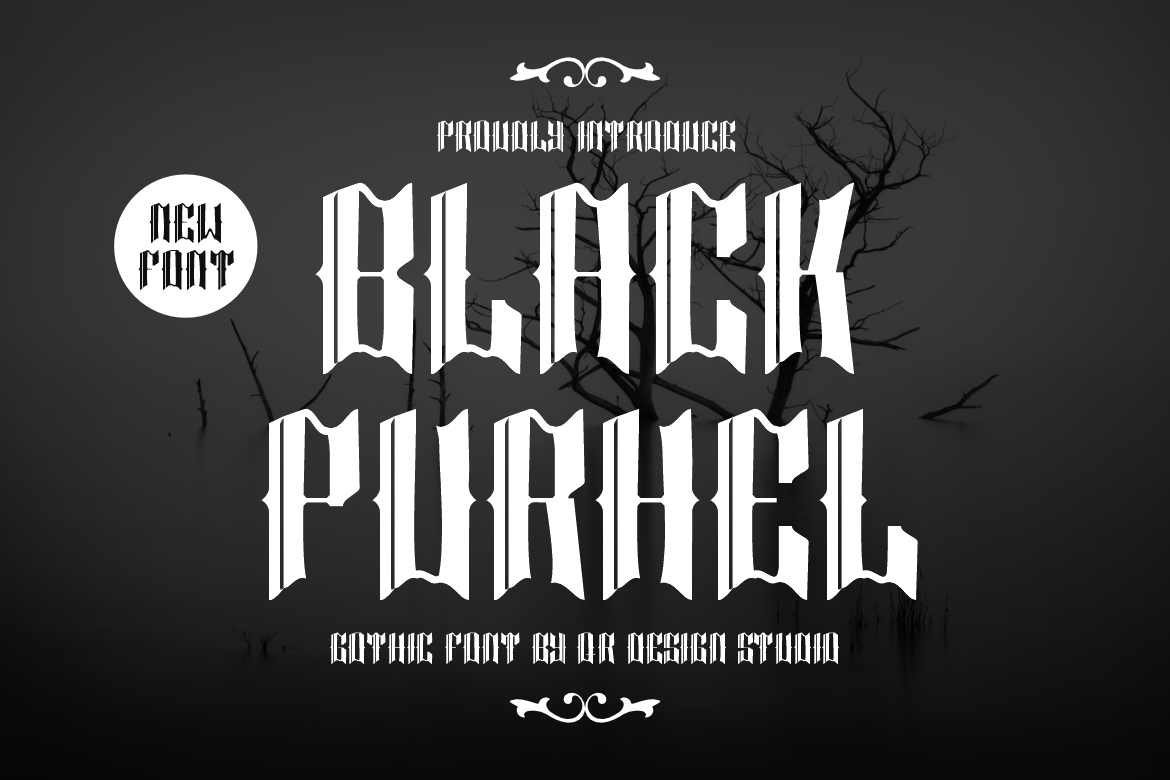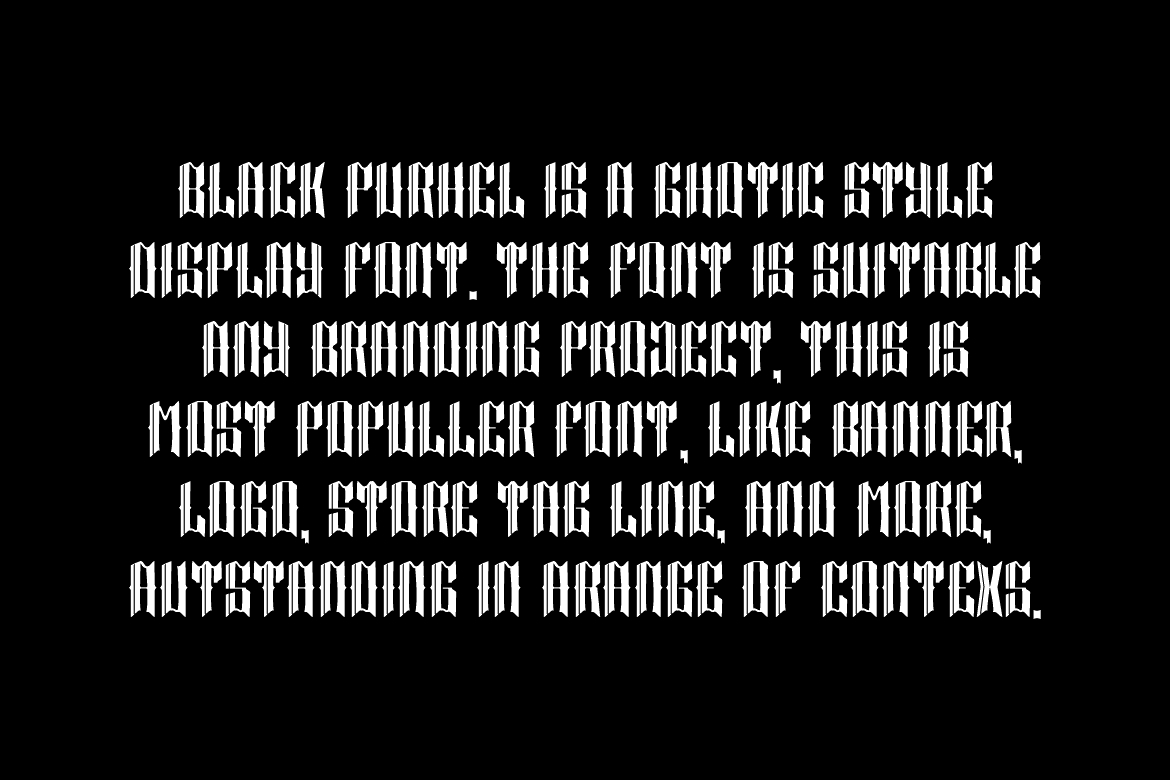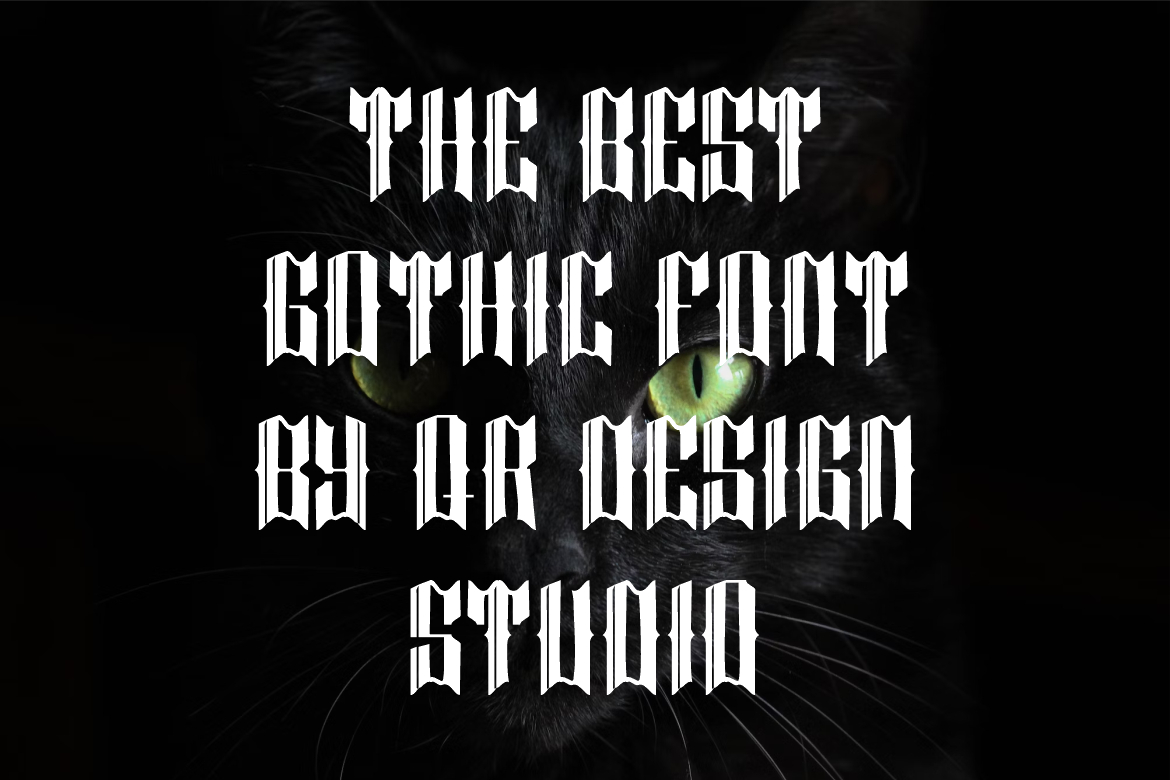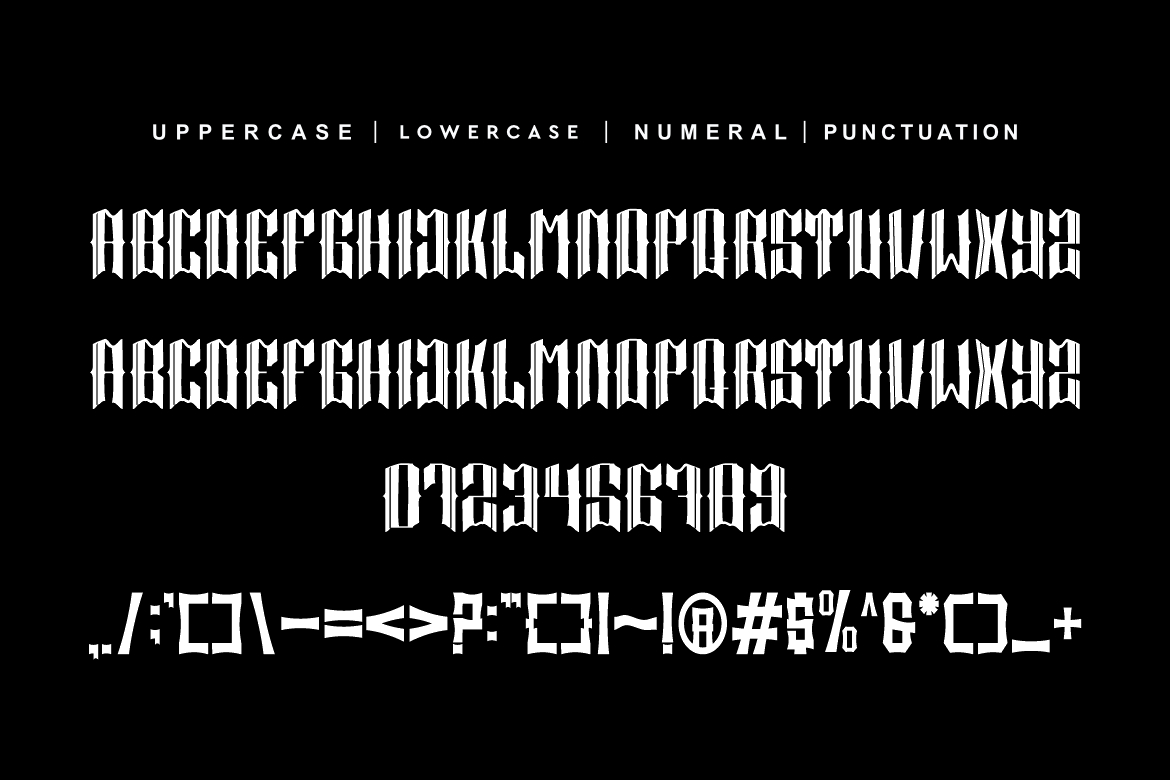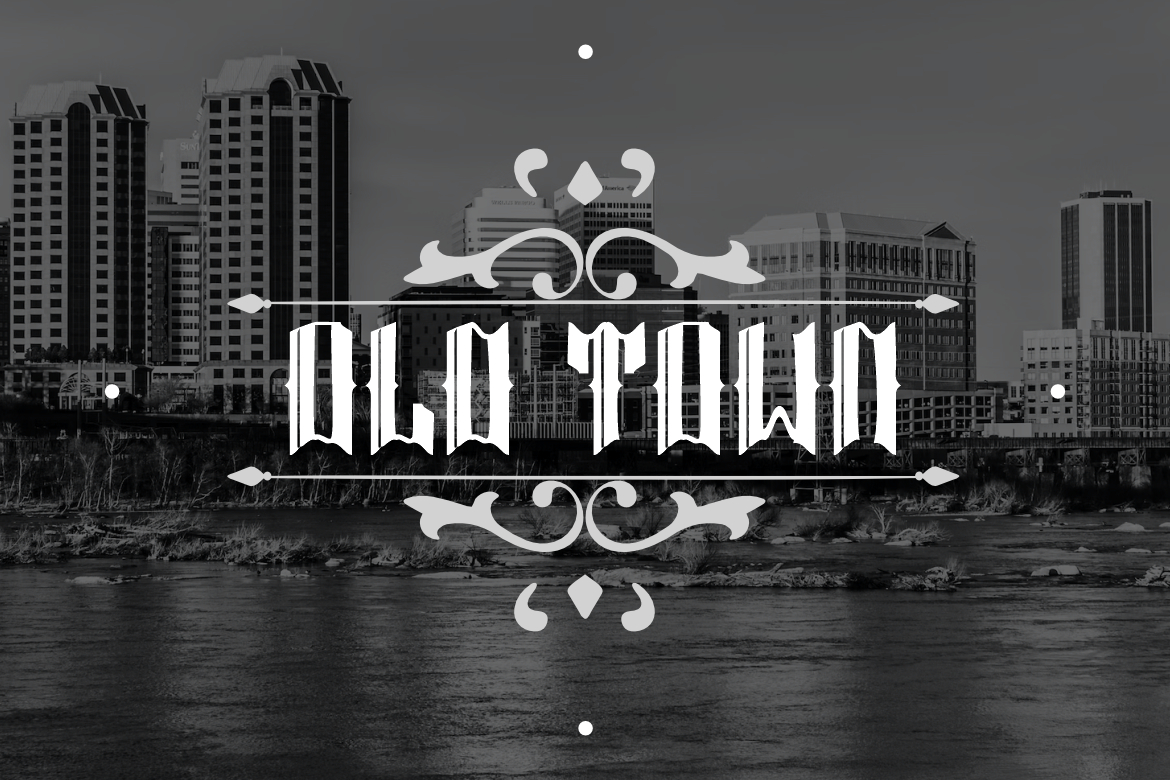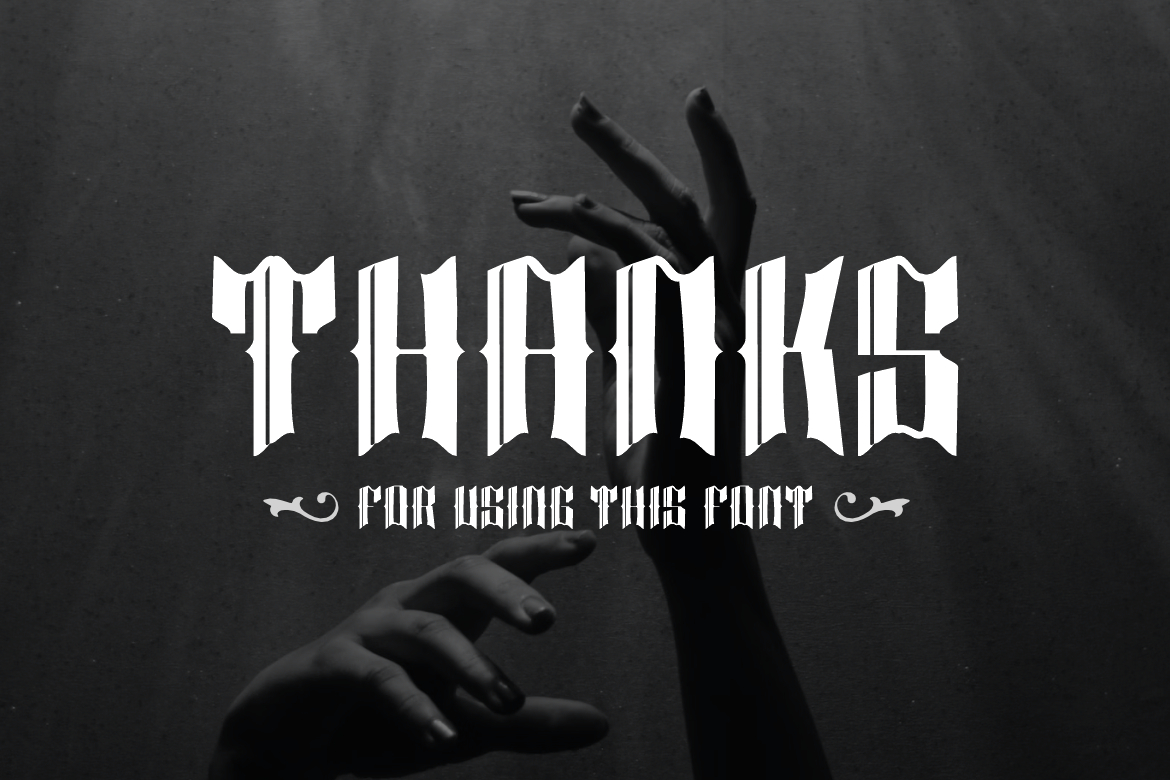
Black Purhel Font
About Black Purhel Font
Black Purhel is a captivating gothic display font that exudes an air of mystery and elegance. With its intricate and ornate letterforms, this font is perfect for adding a touch of dark sophistication to your design projects. Whether you’re crafting invitations, posters, or branding materials, Black Purhel’s unique, intricate style will make a striking impression.